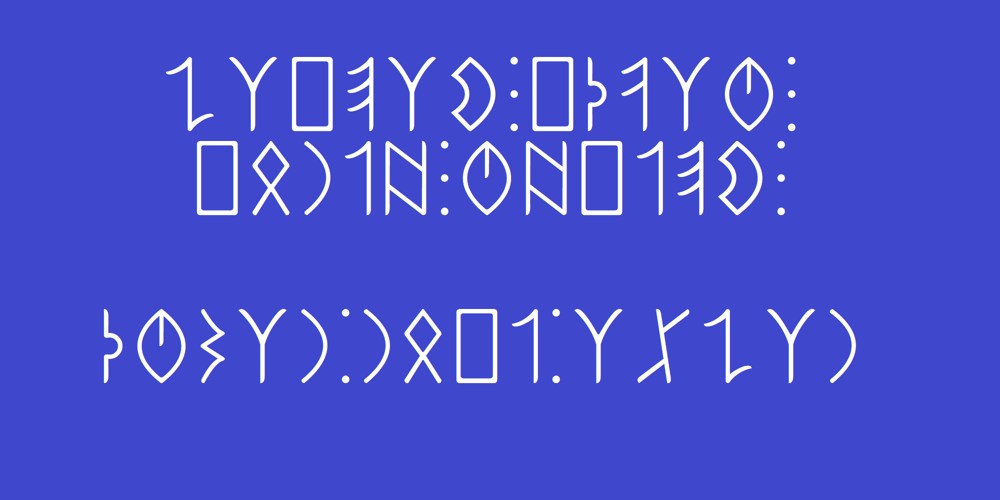
Ongunkan Carpathian Basin Rovas Font Family was designed by Osman Nuri ALKAN and published by Runic World Tamgacı. Ongunkan Carpathian Basin Rovas contains 1 styles and family package options. Carpathian Basin RovasThe Carpathian Basin Rovas script, or Kárpát-medencei rovás in Hungarian, was used in the Carpathian Basin between about the 7th and 11th centuries. Most of the inscriptions are in Hungarian, but some were in Onogur, As-Alan, Slavic or Eurasian Avar.Carpathian Basin Rovas is thought to be a descendent of the Proto-Rovas script, which was used to the east of the Aral Sea between about the 1st century AD and 567, when the tribes who were using it, the Avars and Ogurs, started to move into the Carpathian Basin. That process took until about 670 AD, after which the Proto-Rovas script became the Carpathian Basin Rovas and the Khazarian Rovas scripts. The Proto-Rovas script was perhaps a descendent of the Aramaic script.Since 2009 efforts have been made to revive the use of this alphabet. Some letters were added to it to represent sounds in modern Hungarian that weren’t used historically.